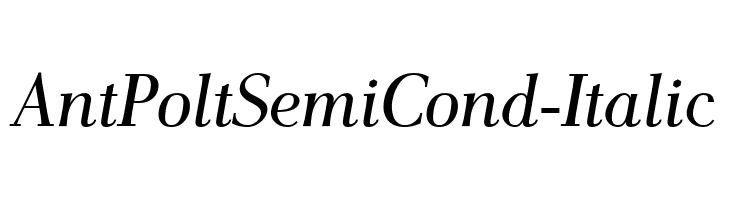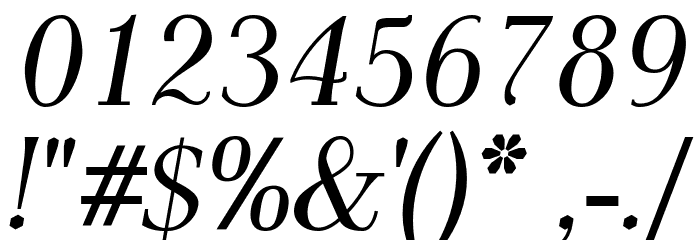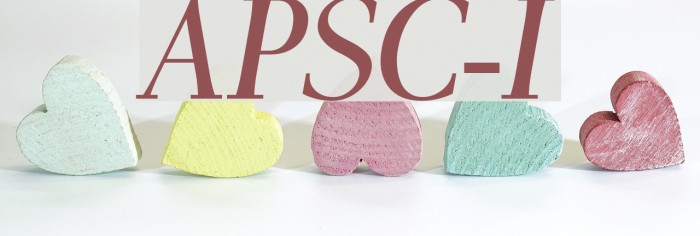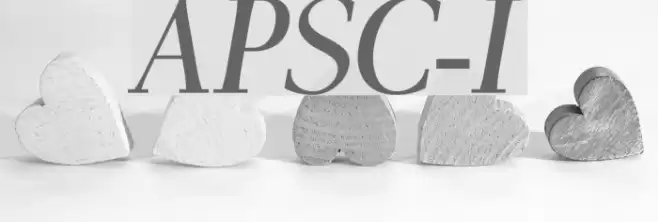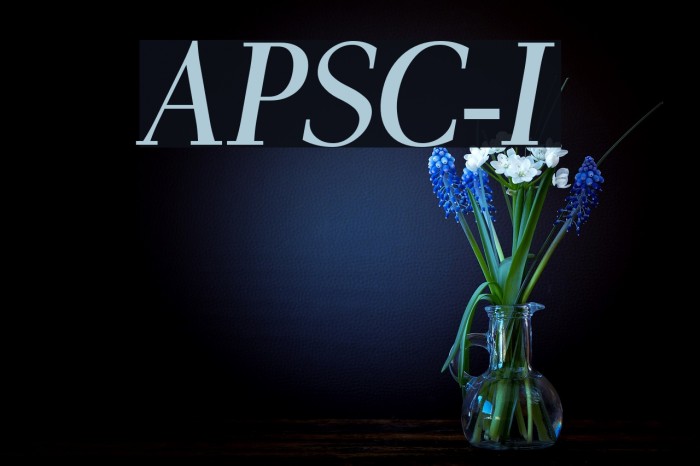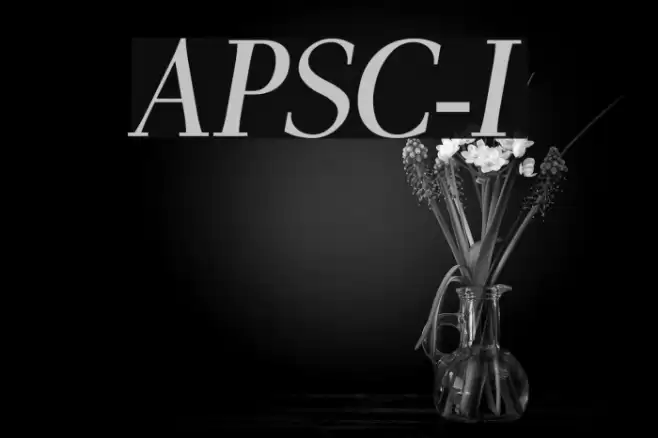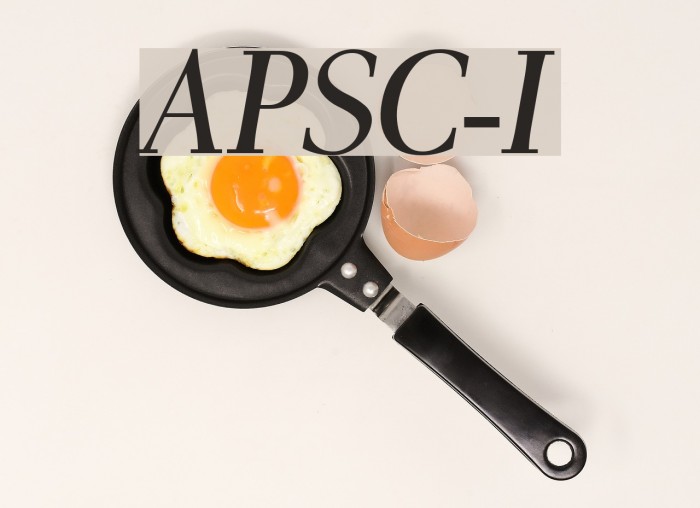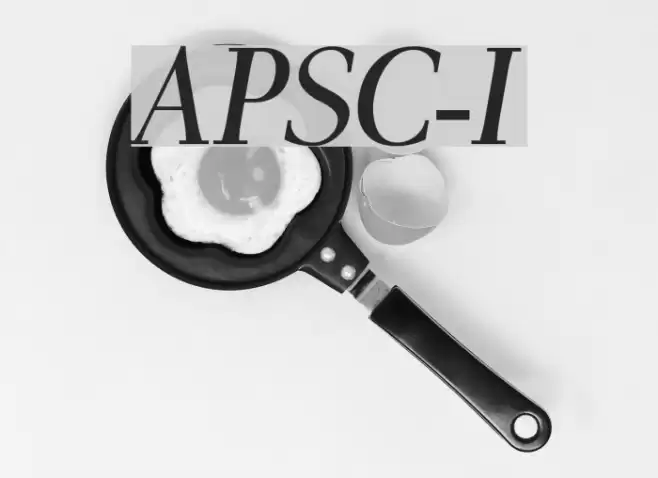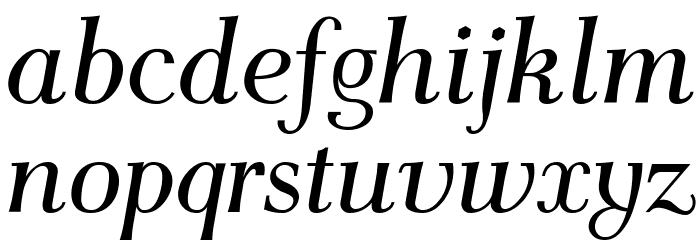
AntPoltSemiCond-Italic Font
AntPoltSemiCond-Italic Description
This font exhibits a refined and elegant style with a slight slant, characteristic of italic typefaces. The letters are semi-condensed, providing a sleek and modern appearance while maintaining readability. The strokes are smooth and consistent, with moderate contrast between thick and thin lines, adding to its sophisticated look. The uppercase letters are tall and commanding, while the lowercase letters are well-proportioned and harmonious. The numerals are clear and distinct, matching the overall aesthetic. Special characters are thoughtfully designed, complementing the alphabetic characters seamlessly.
A refined, semi-condensed italic font with moderate contrast and elegant style from Uncategorized fonts.